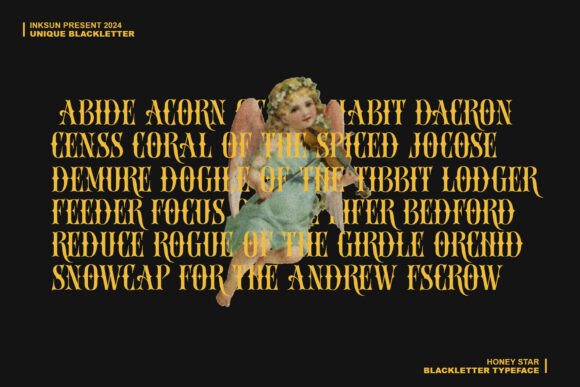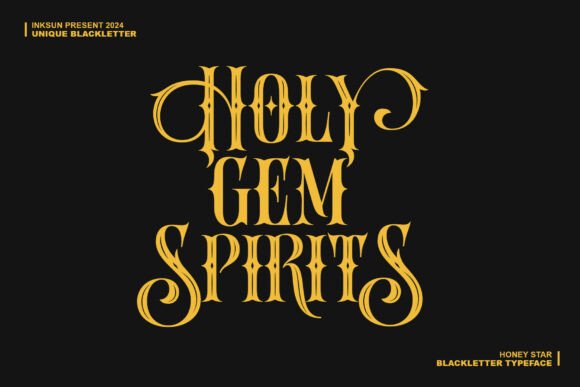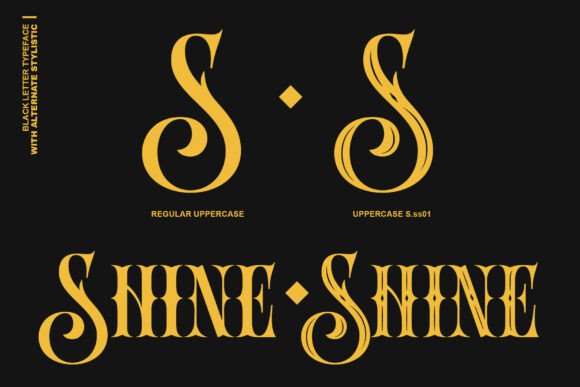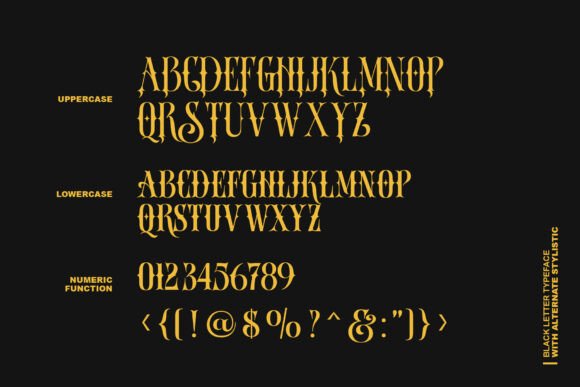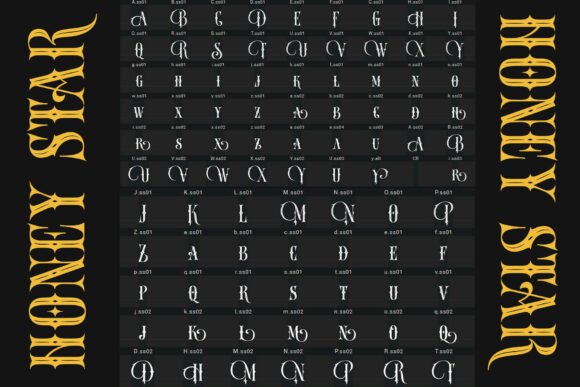
Introduction to Honey Star Font
“Honey Star” is a mesmerizing and unique blackletter typeface that masterfully blends traditional gothic structures with a magical, modern flair.
Characterized by its bold, thick letterforms and high-contrast strokes, this font exudes a sense of premium craftsmanship and professional grace Its standout features include graceful sweeping curves and alternate stylistic flourishes that seamlessly integrate starry and sparkle elements into the design.